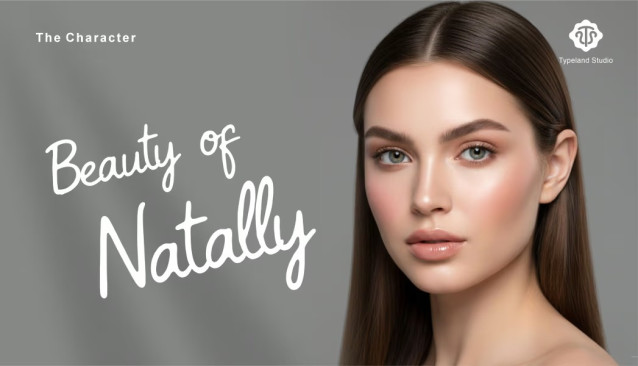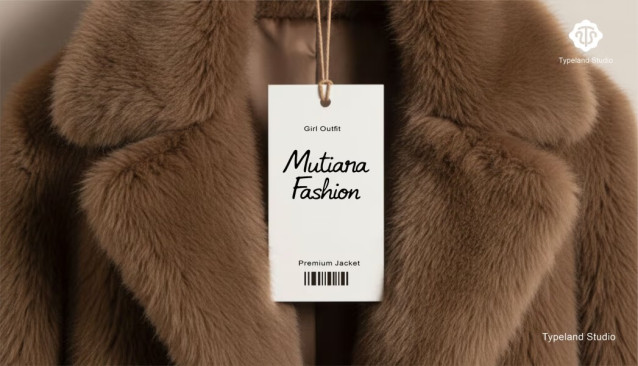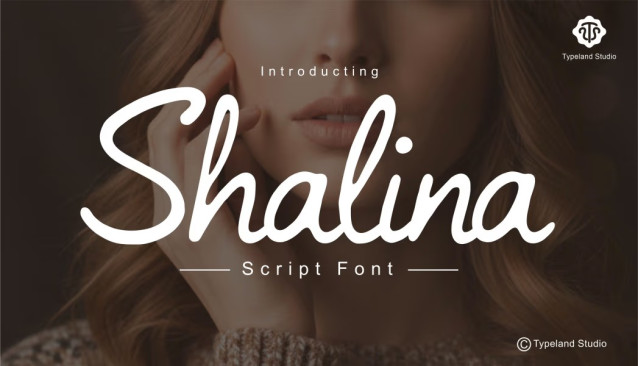
Shalina Script Font
Shalina Script Font is an elegant and modern script font with a smooth handwritten flow. Designed with graceful curves and natural strokes, Shalina brings a soft, feminine, and luxurious feel to any design. Its balanced letterforms and fluid connections make it perfect for branding, logos, wedding invitations, beauty products, fashion labels, social media posts, and elegant typography projects.
Shalina combines contemporary style with classic calligraphy, creating a warm and personal touch while remaining highly readable. Whether used for headlines or signature-style text, this font adds charm, sophistication, and timeless beauty to your designs.